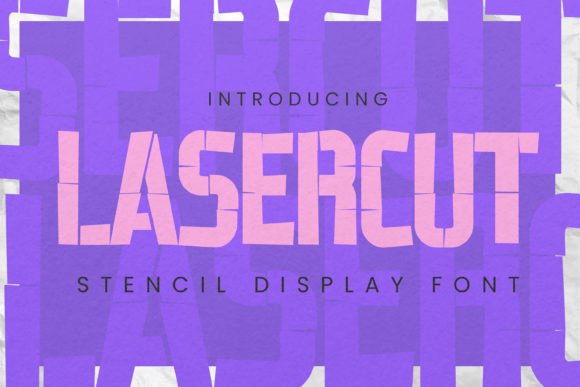
Discord the mundane and step into the realm of digital brilliance with Lasercut, the display font that redefines the boundaries of modern typography. This font family is a captivating dance of precise, intricate letterforms, reminiscent of the exquisite artistry of laser-cut designs. Its sleek lines and sharp angles create an enigmatic aura of futurism, propelling your projects into the stratosphere of innovation.
Lasercut is the perfect font for the business world, a font that commands attention and leaves an indelible impression. Its bold and memorable style effortlessly elevates your logos, branding, and headlines, transforming them into visual masterpieces that resonate with sophistication and power. Let Lasercut be your secret weapon in the battle for attention, leaving your competitors trailing in its wake.
Lasercut is not just a font; it's an experience, a journey into the depths of creativity where your ideas take flight. Its versatility extends beyond the corporate realm, seamlessly adapting to personal projects and artistic endeavors. Whether you're designing posters, creating social media graphics, or crafting eye-catching invitations, Lasercut adds an instant touch of elegance and individuality.
With Lasercut, mundane becomes magnificent. Embrace the allure of its laser-cut precision and watch as your designs transcend the ordinary. Its sleek lines and sharp angles dance across the screen, capturing hearts and minds with their captivating charm. It's a font that speaks volumes, a font that commands attention, a font that transforms your ideas into tangible wonders.
Lasercut is your passport to a world of design excellence. Its power lies in its ability to elevate your projects, to make them shine brighter than the stars. This is the font that will turn heads, generate buzz, and leave an enduring legacy. Are you ready to unleash the true potential of your creativity? If so, Lasercut awaits your command.